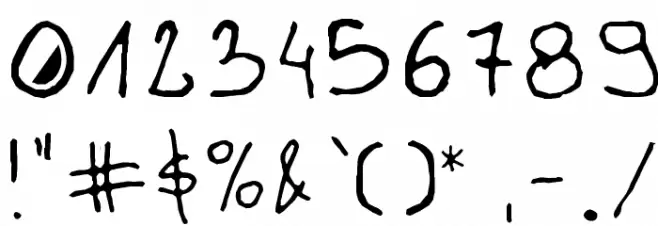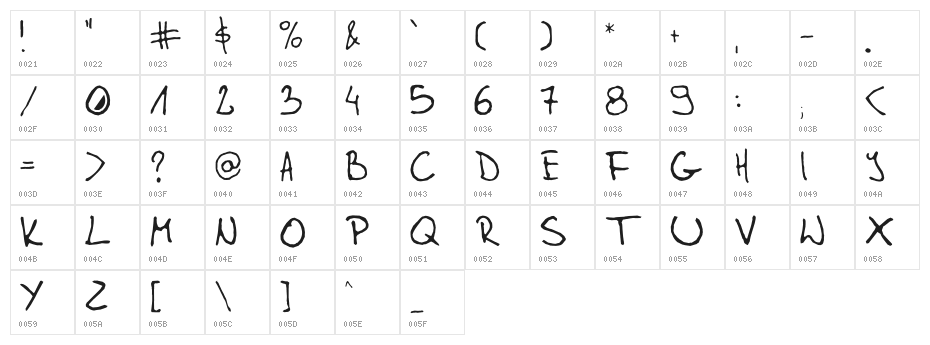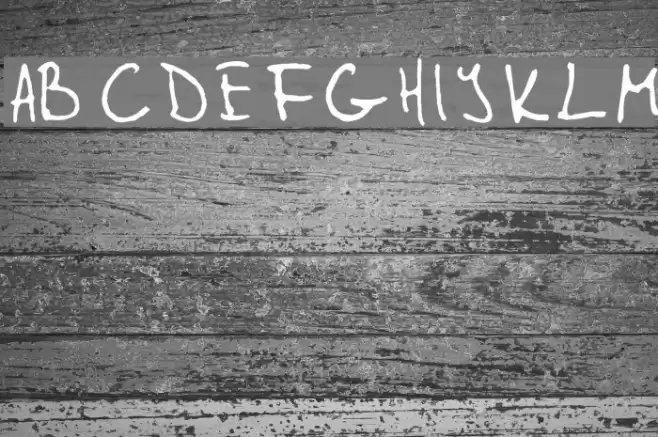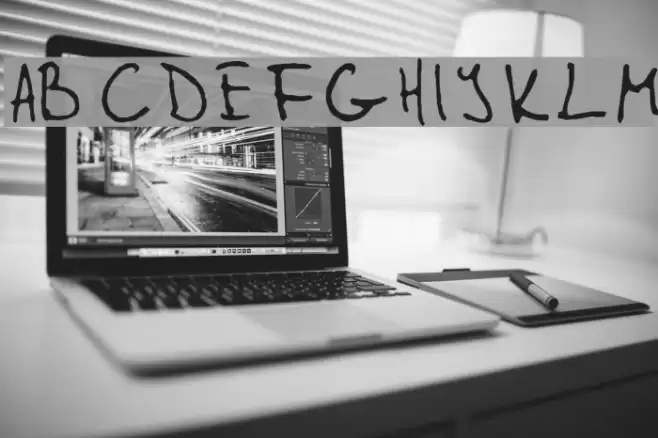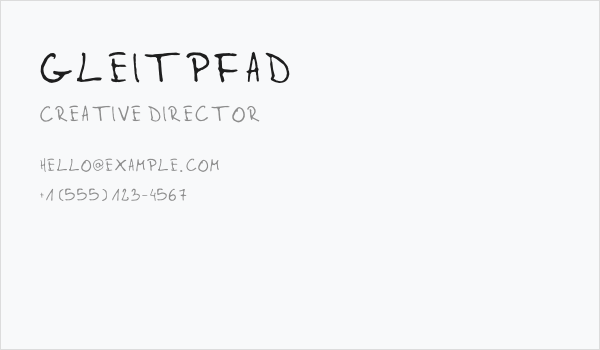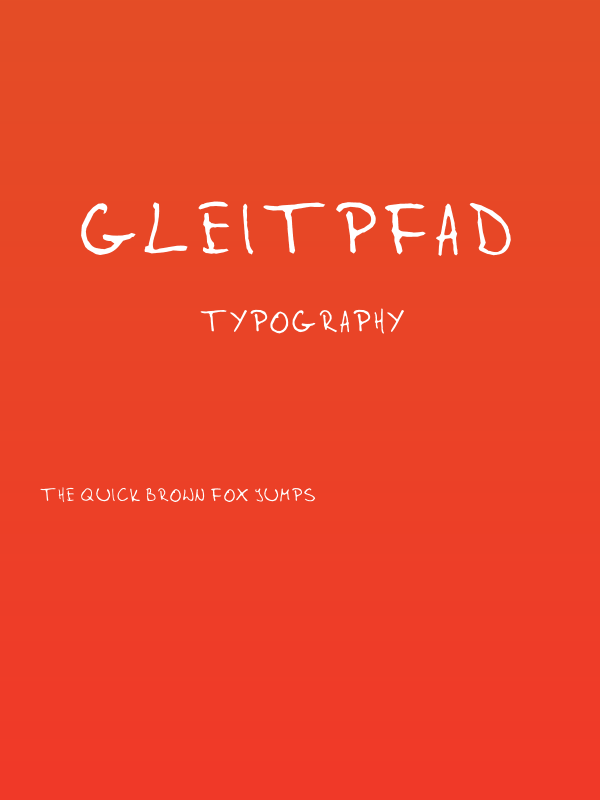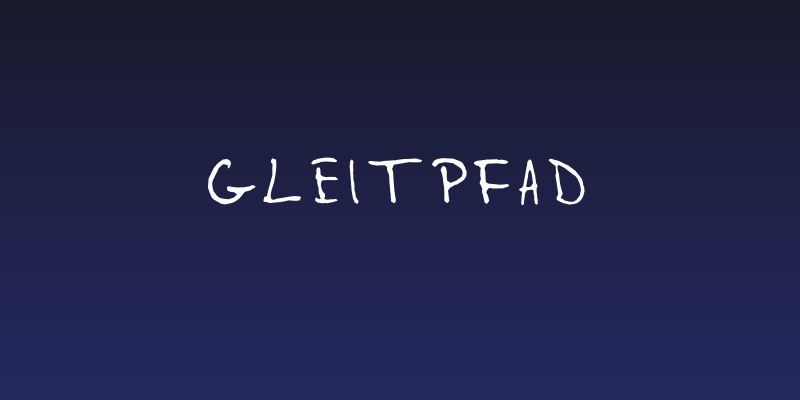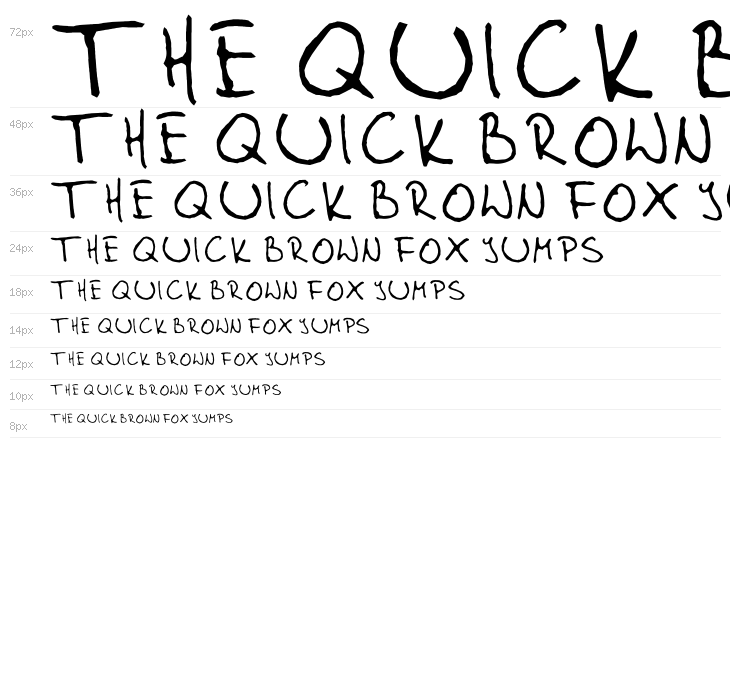
Gleitpfad Font
Gleitpfad Description
This font exudes a playful and informal vibe, characterized by its hand-drawn appearance. The letters are unevenly shaped, with a slightly rough texture that adds to its casual charm. The uppercase and lowercase letters maintain a consistent style, with rounded edges and a slightly irregular baseline, giving it a whimsical feel. Numbers and special characters follow the same design ethos, contributing to a cohesive look. The font's organic and spontaneous style makes it ideal for projects that require a personal touch or a sense of creativity.